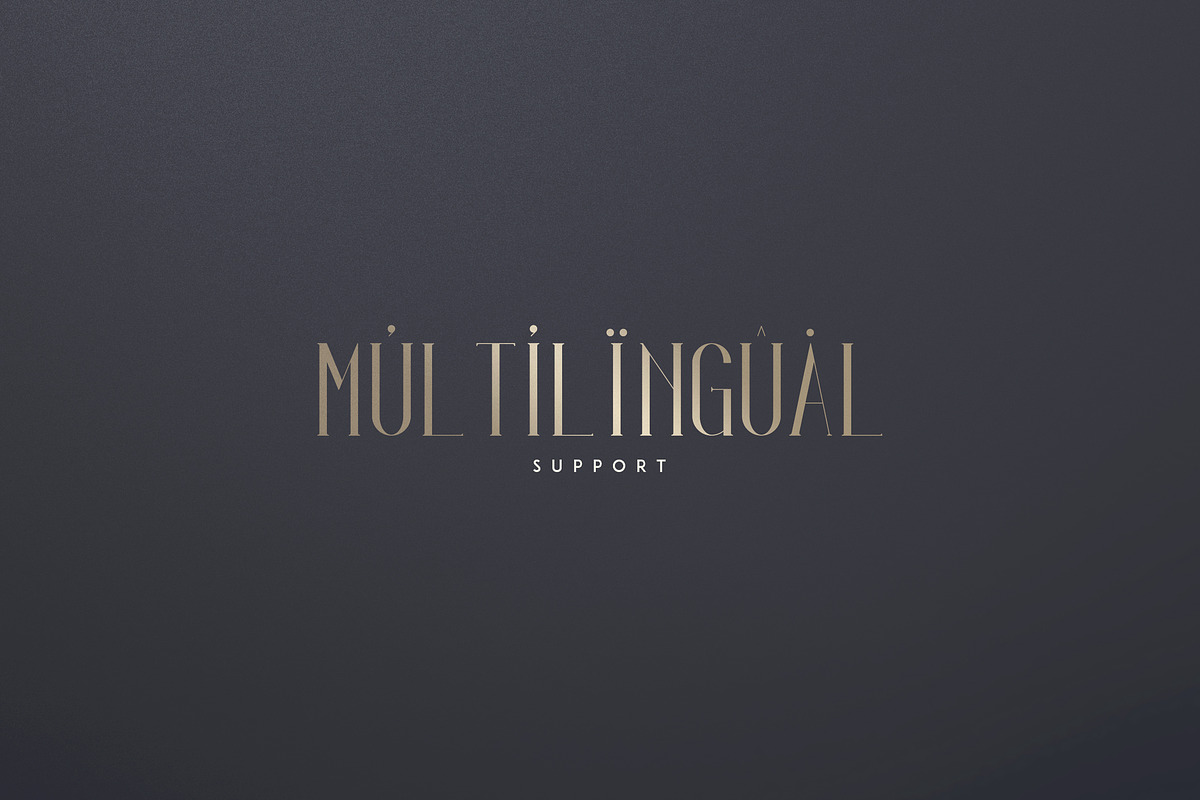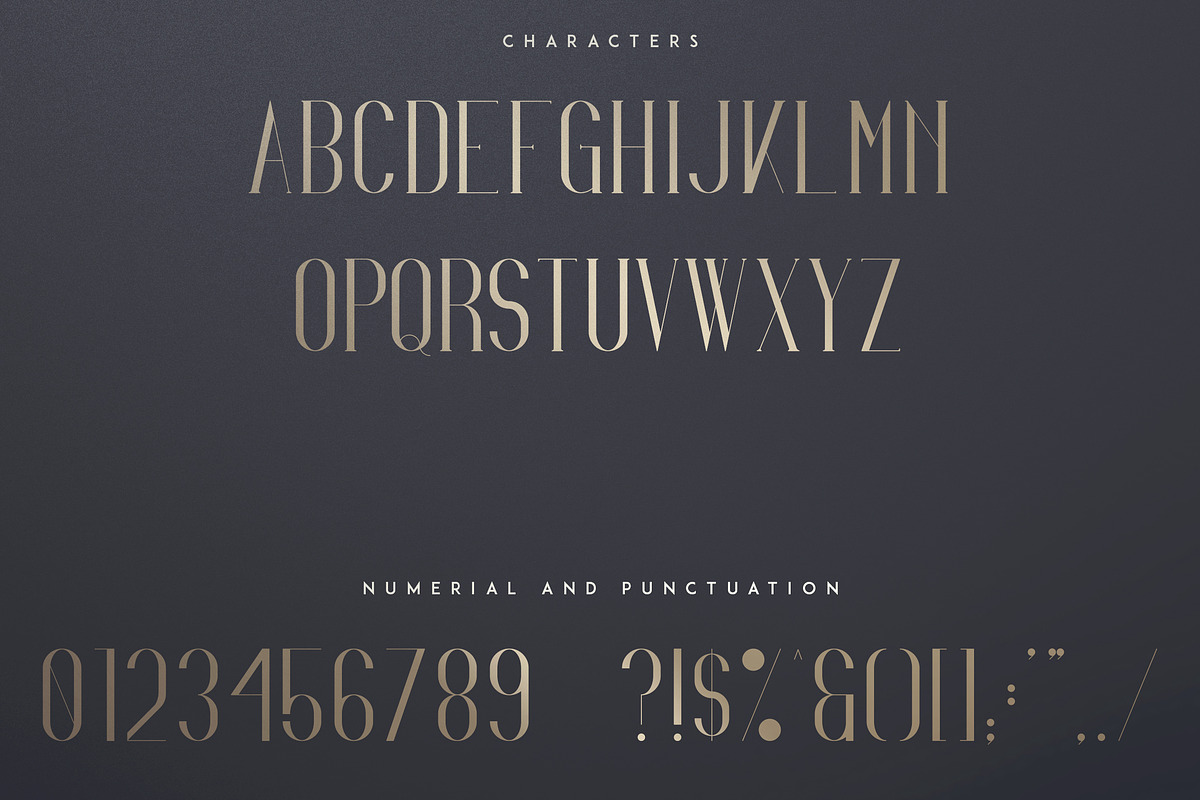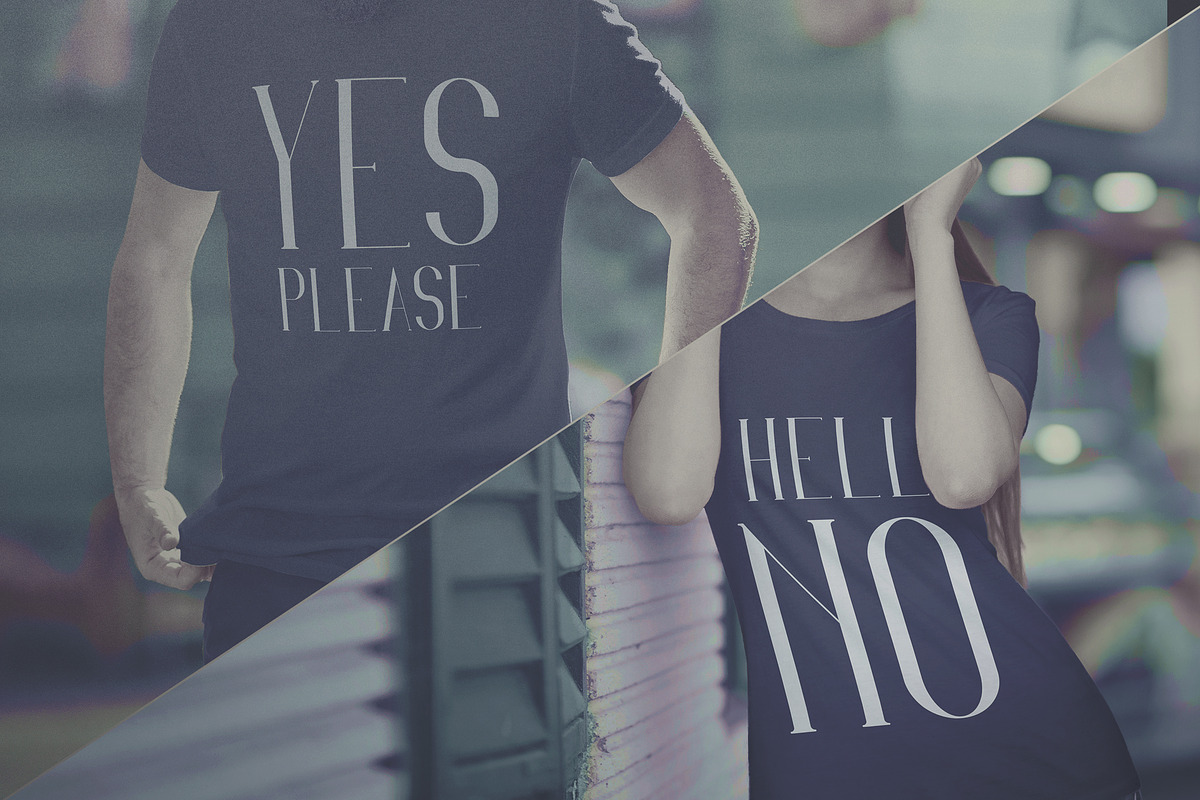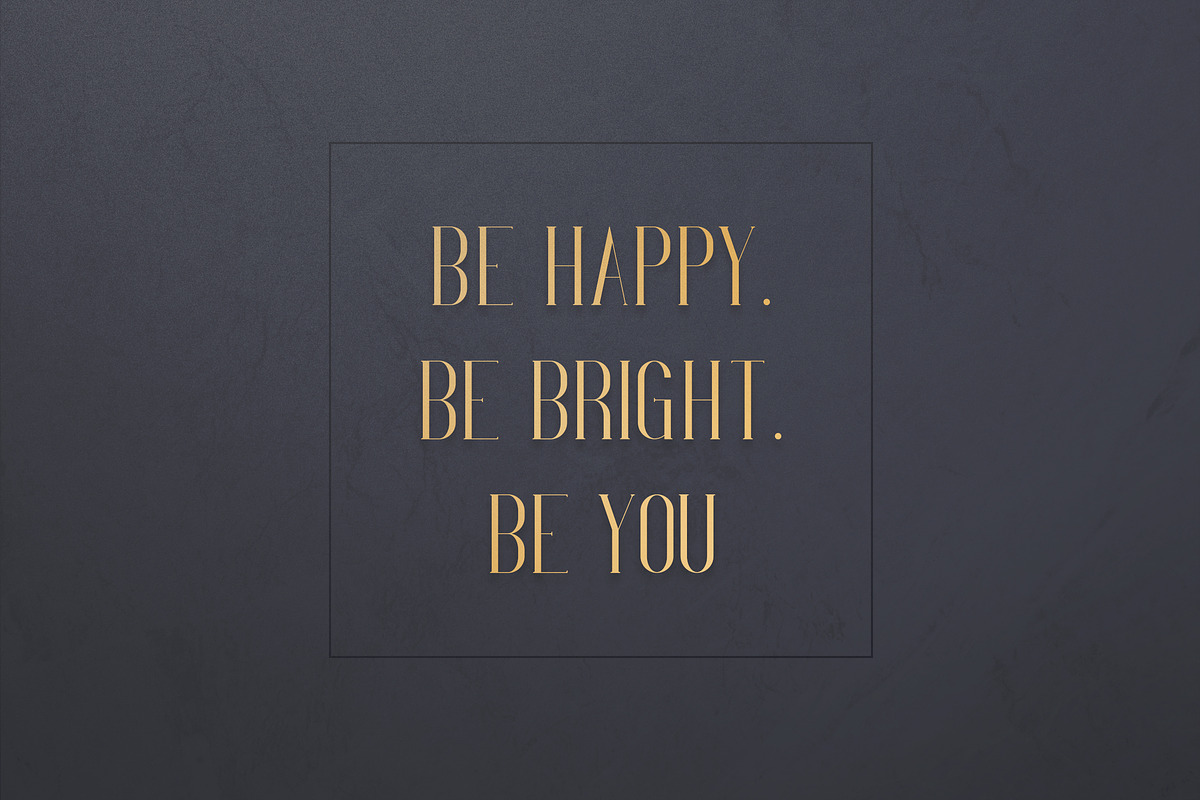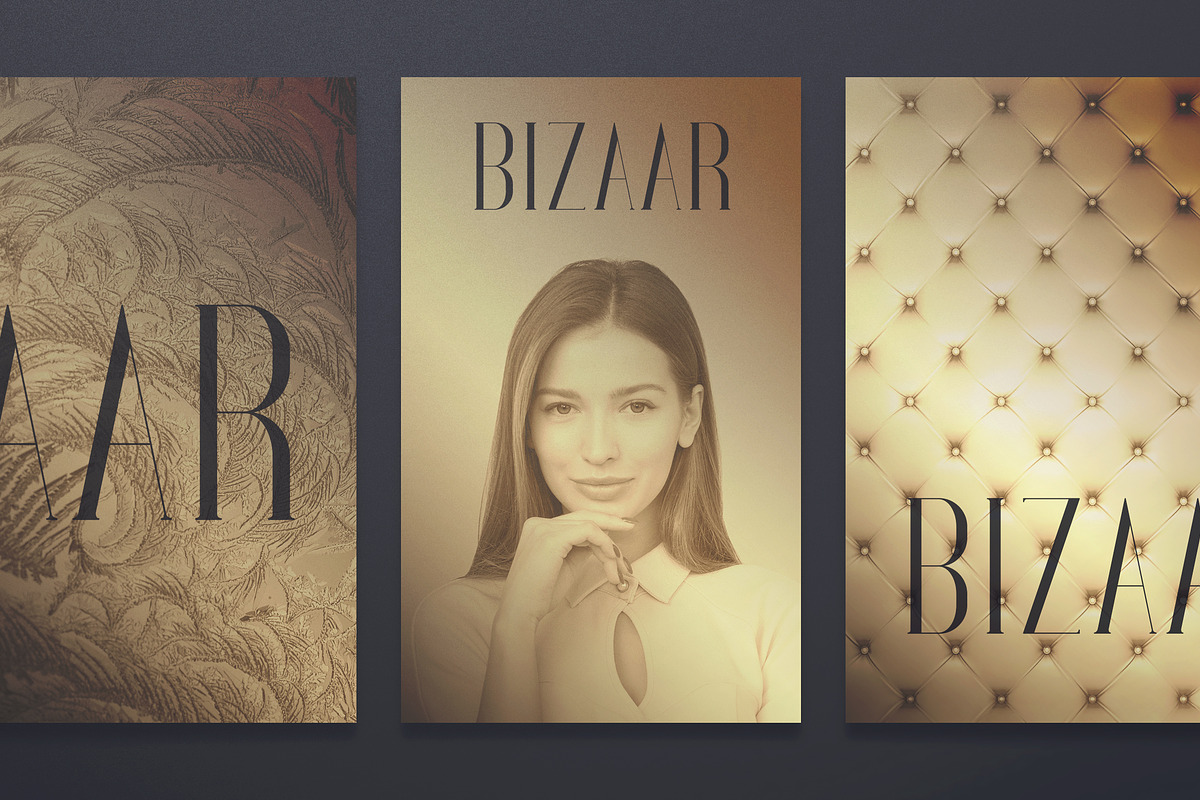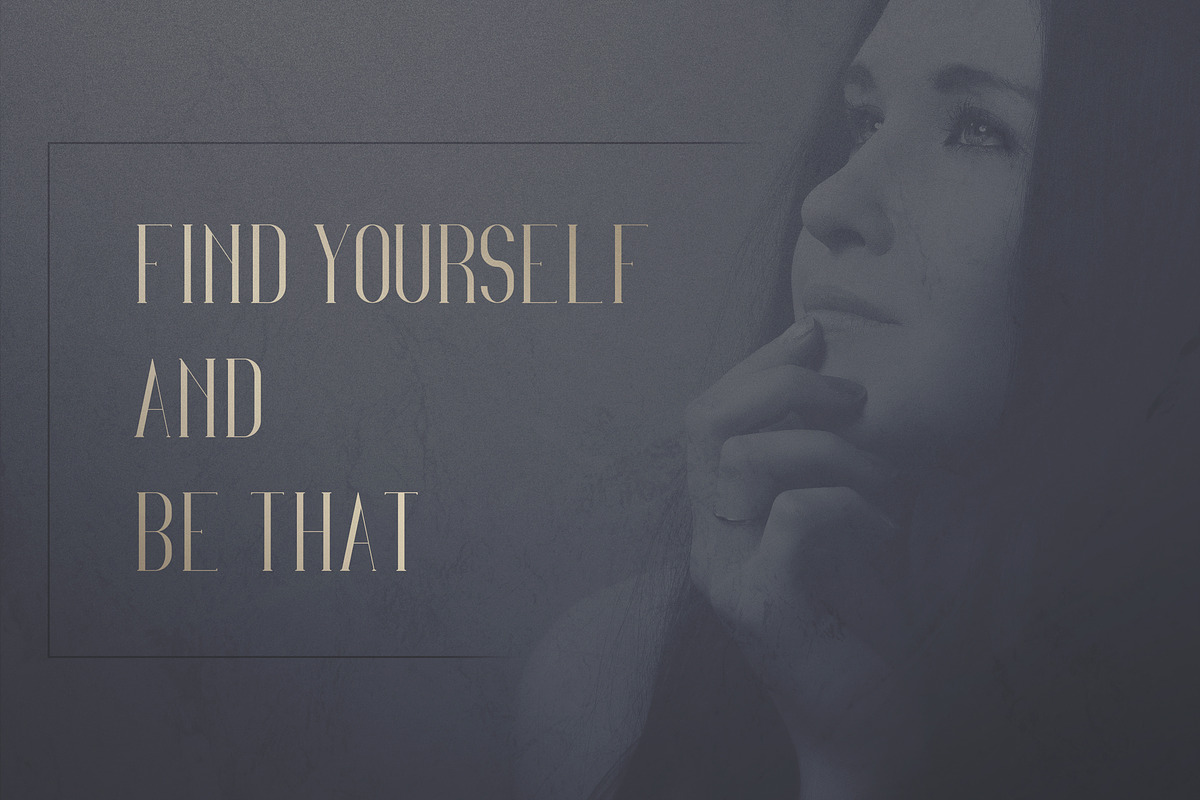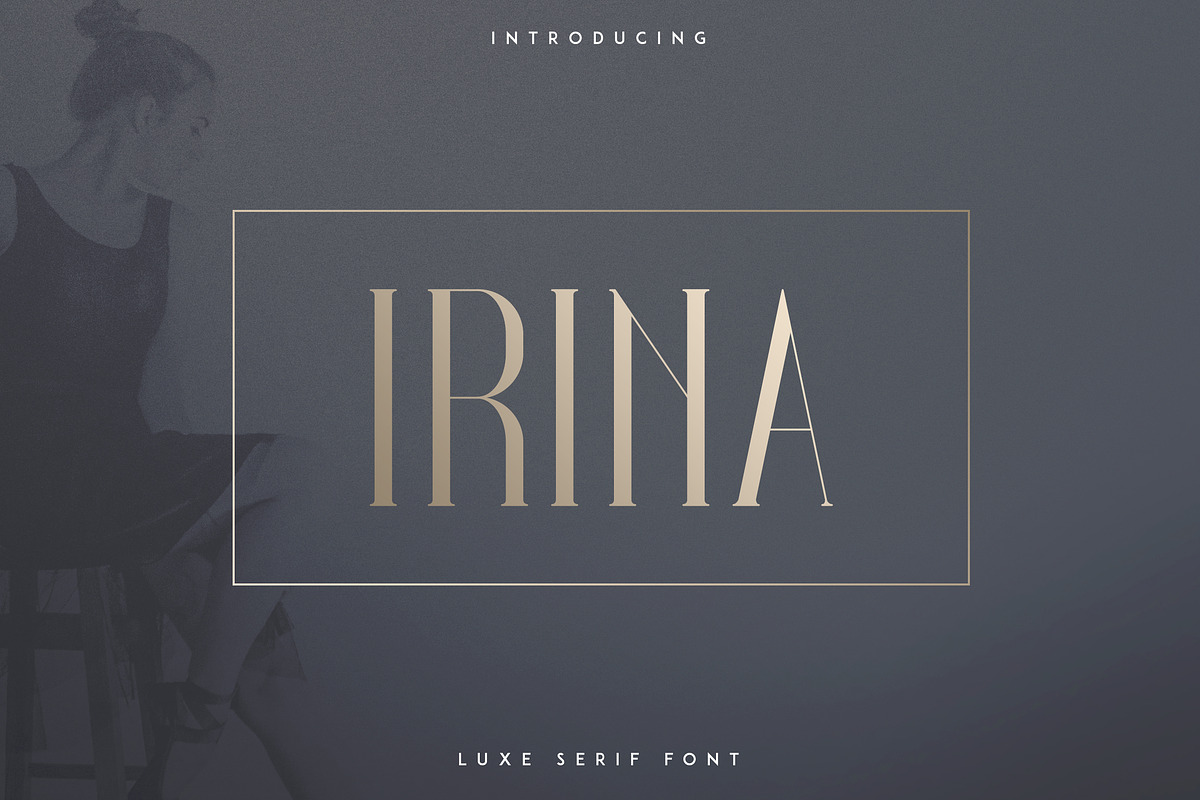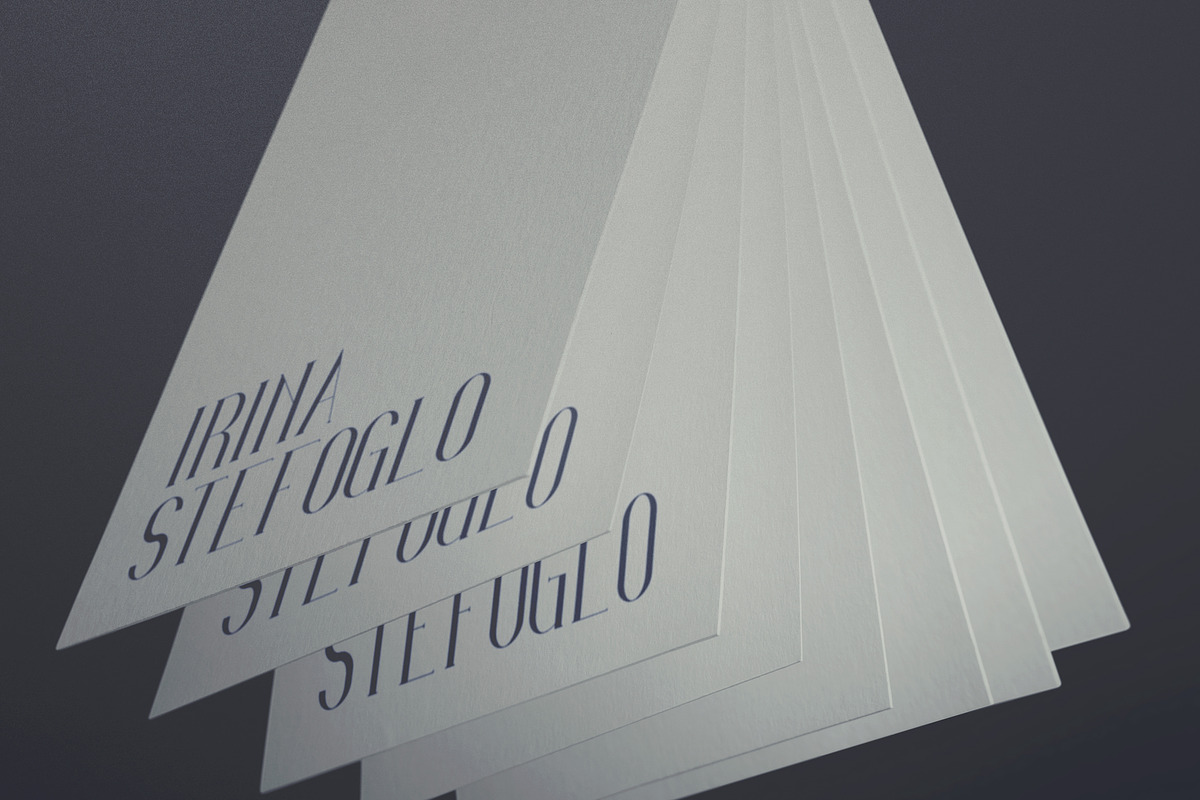
Irina is elegant high end serif font with multilingual support. It's a very versatile font that works great in large and small sizes.
Irina is perfect for branding projects, home-ware designs, product packaging, wedding invitations, magazine headers - or simply as a stylish text overlay to any background image.